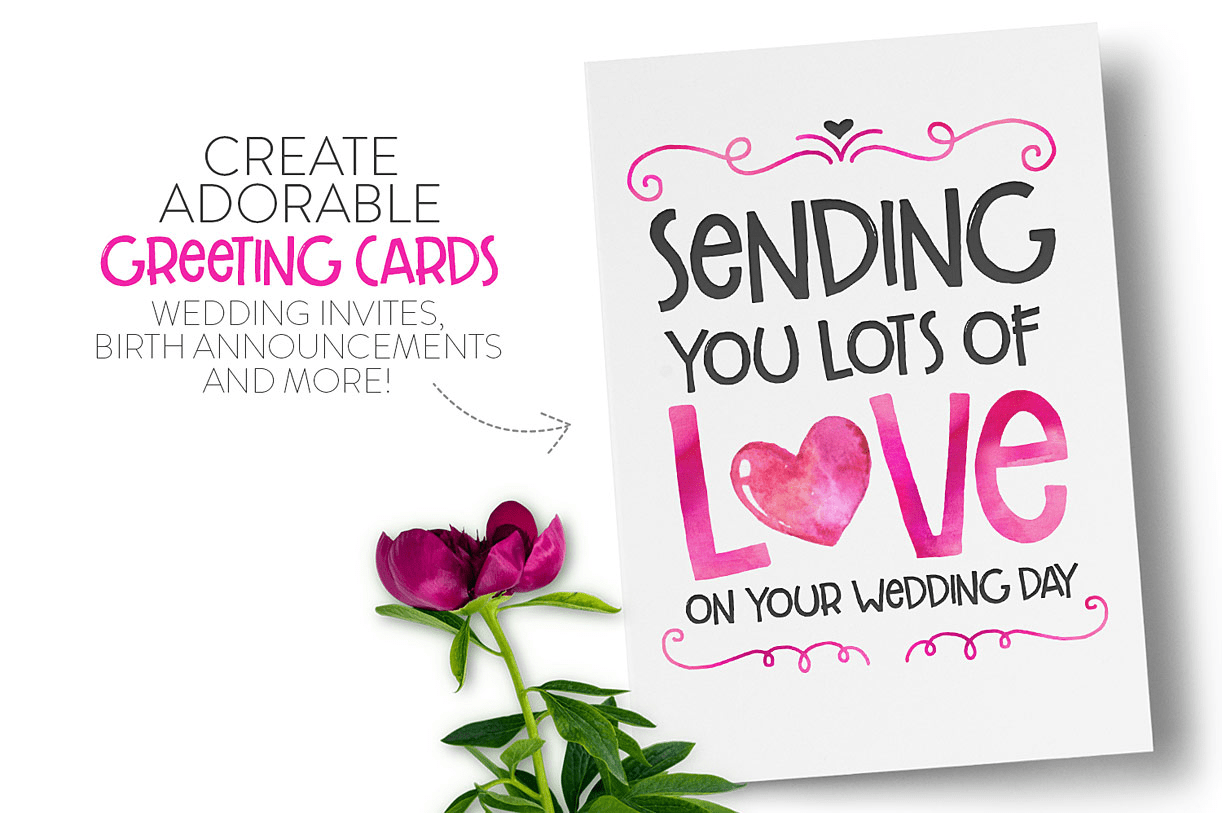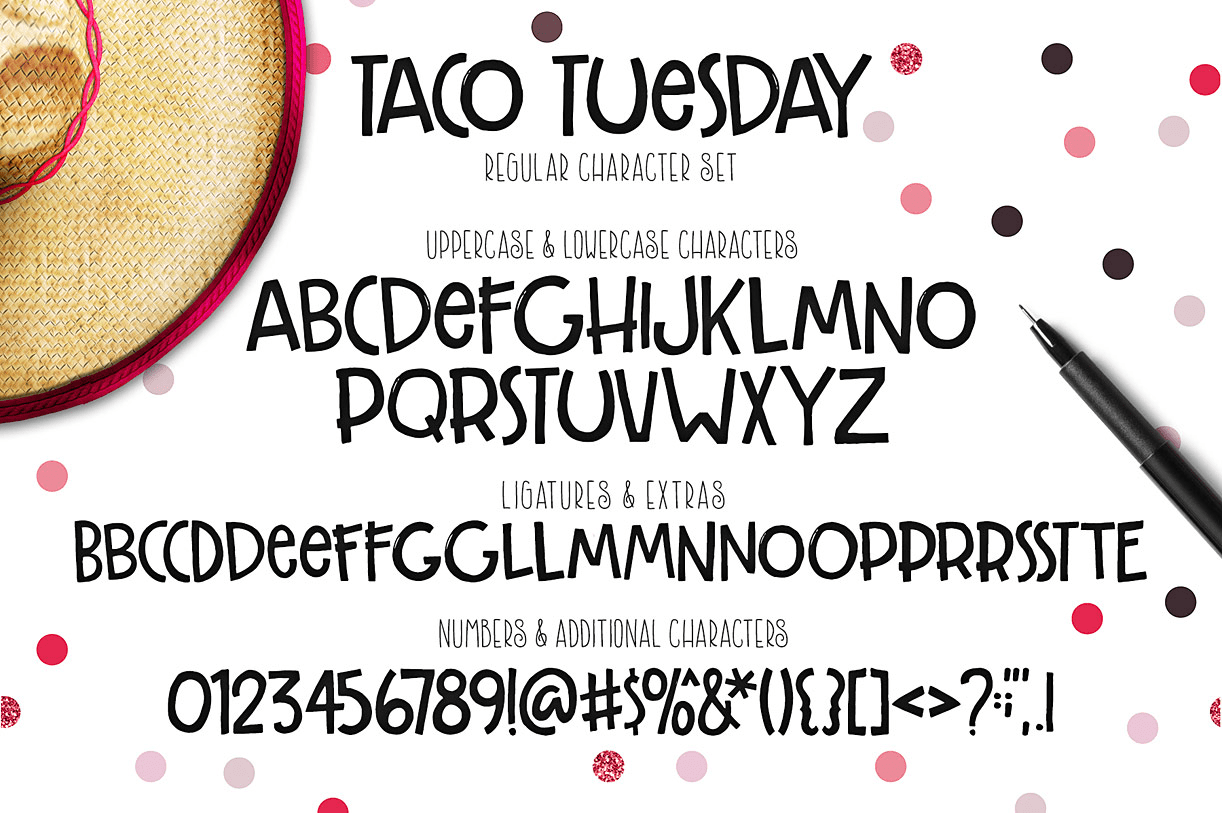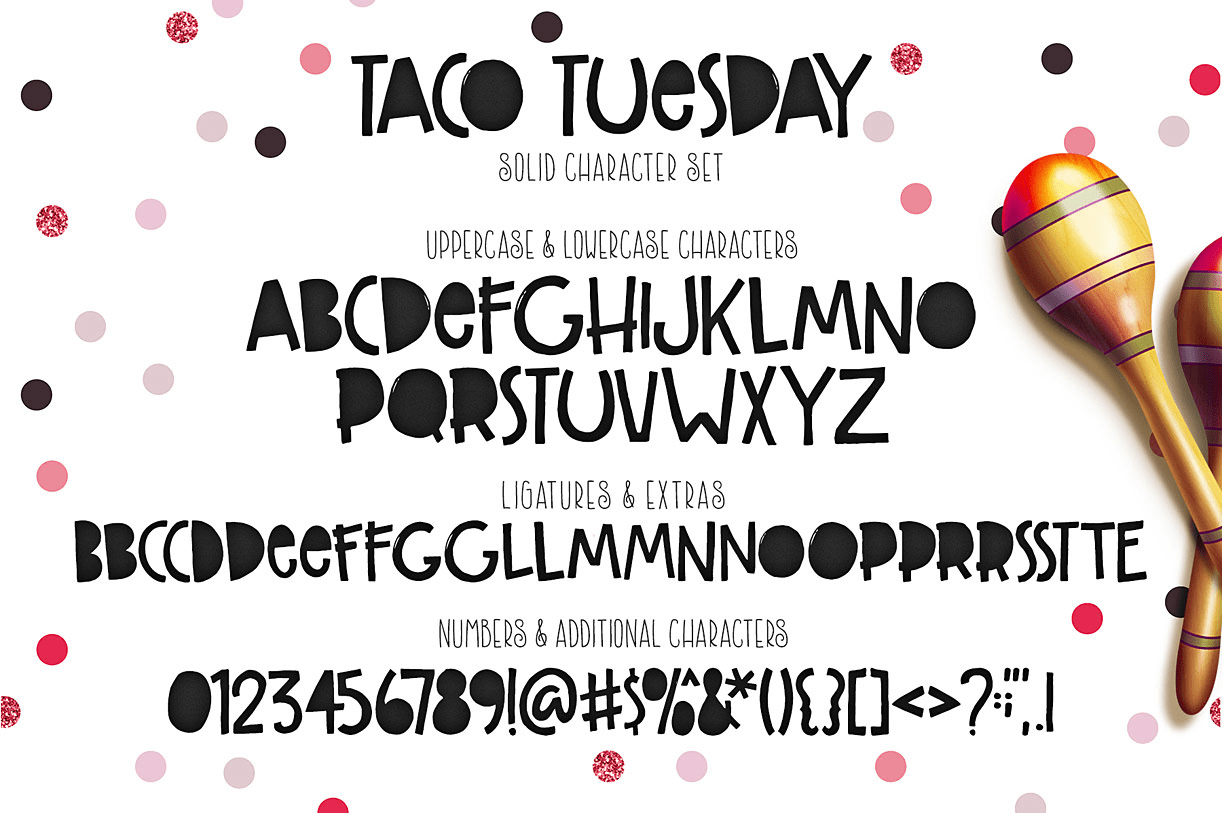
You wanted a listing for Taco Tuesday, so here ya go! Meet the adorable, hand-drawn font that looks great on greeting cards, sweet on mugs and works seamlessly on just about any hand lettered project that comes your way. 🙂 Taco Tuesday was hand-lettered…